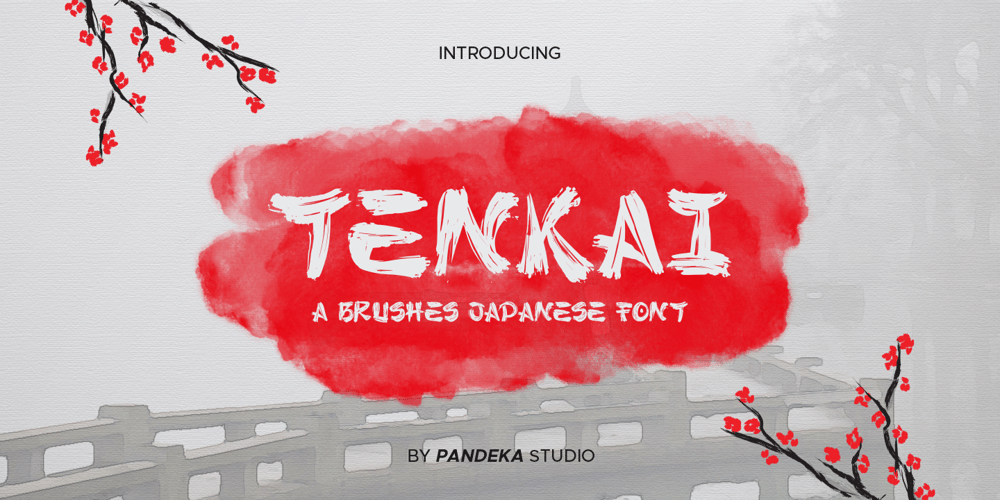
Tenkai
Tenkai font
Tenkai Font Family was designed by Sagara Nararya and published by Pandeka Studio. Tenkai contains 1 styles and family package options. Konnichiwa! 🌸 Meet Tenkai, a bold and authentic Japanese brushes font inspired by the beauty and artistry of traditional Japanese culture. Designed with a hand-drawn brushstroke style, Tenkai brings a dynamic and organic feel to your designs. Its imperfect yet harmonious strokes capture the spirit of Japanese calligraphy, making it perfect for projects that aim to evoke tradition, artistry, and elegance.What’s Included: Main Files formats 1 Style: Regular Full Character Set: Uppercase, lowercase, numbers, symbols, and punctuation Easy to Use: Works seamlessly on both PC & Mac Compatible with Adobe Illustrator, Photoshop, Microsoft Word, Canva, and other design tools PUA Encoded: No additional software is needed to access all the features Language Support: Danish, English, Estonian, Filipino, Finnish, French, Friulian, Galician, German, Gusii, Indonesian, Irish, Italian, Luxembourgish, Norwegian Bokmål, Norwegian Nynorsk, Nyankole, Oromo, Portuguese, Romansh, Rombo, Spanish, Swedish, Swiss-German, Uzbek (Latin)Follow us on Instagram more updates and creative inspiration!Brought to you by Pandeka Studio